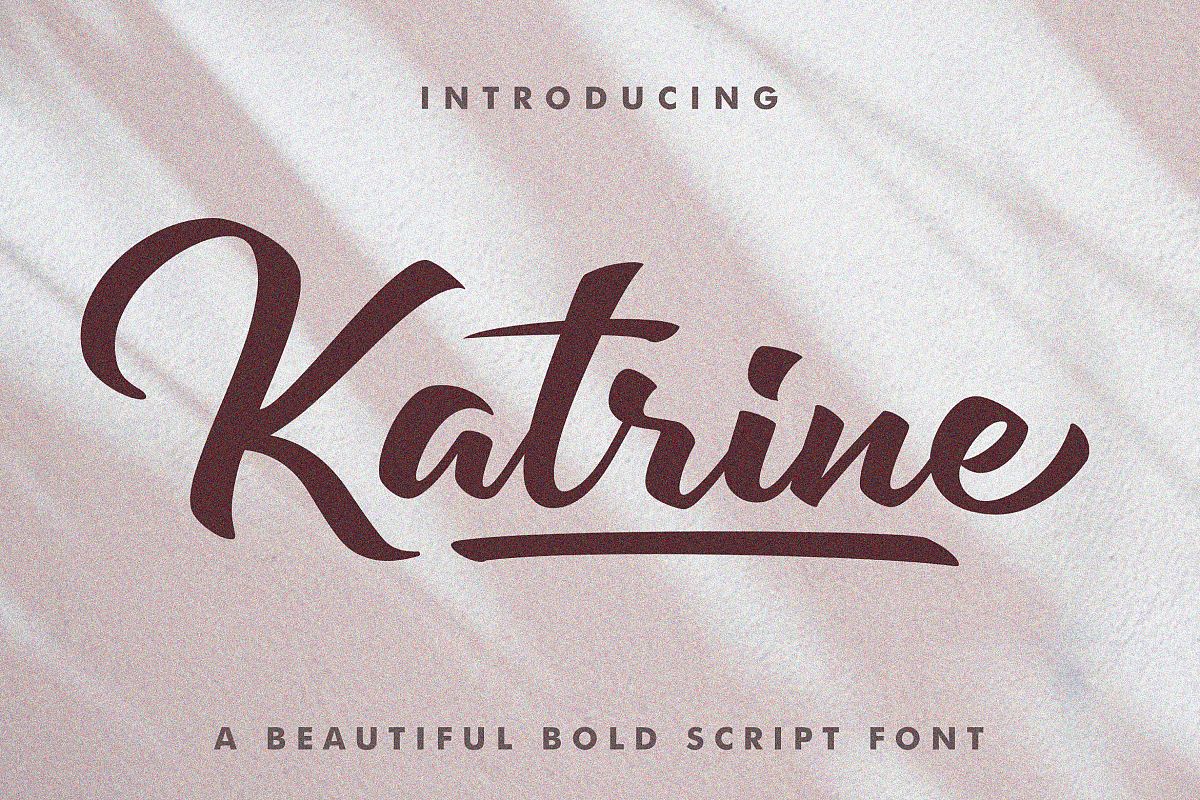
Katrine
Katrine font is a modern, dynamic & fluid handmade font. This adventurous font,
It features ton’s of stunning glyphs with swashes. It’s easy to use and works well for many different types of projects.